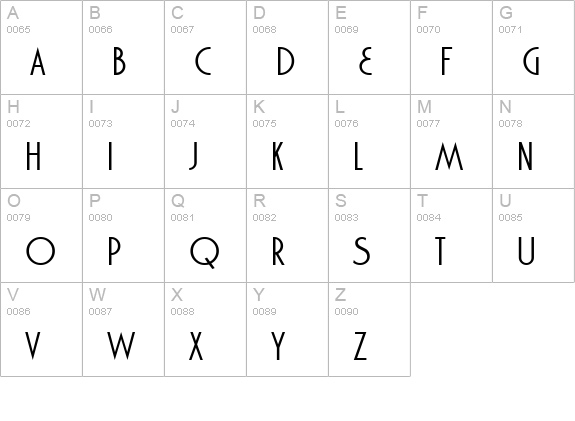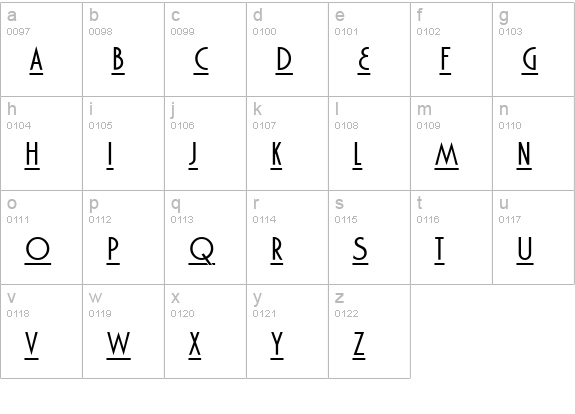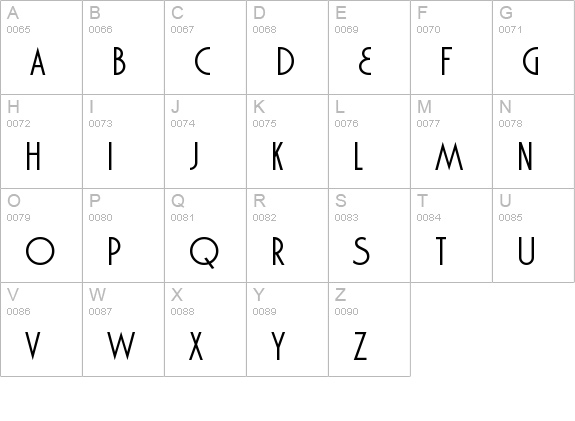
Marquisette BTN Lined is a beautiful and elegant font that exudes sophistication and style. With its clean and crisp lines, this font is perfect for adding a touch of refinement to any design project. The lined version of Marquisette BTN adds an extra layer of depth and dimension, giving your text a unique and eye-catching look. Whether you're designing a logo, creating invitations, or crafting a stunning poster, this font is sure to make a statement. But what sets Marquisette BTN Lined apart is that it is not only stunning, but also free. That's right, you can download this incredible font for absolutely no cost at FontsMarket.com. This means that you can add a touch of elegance to your designs without breaking the bank. So why wait? Take your design projects to the next level with Marquisette BTN Lined. Download this free font today at FontsMarket.com and let your creativity soar.